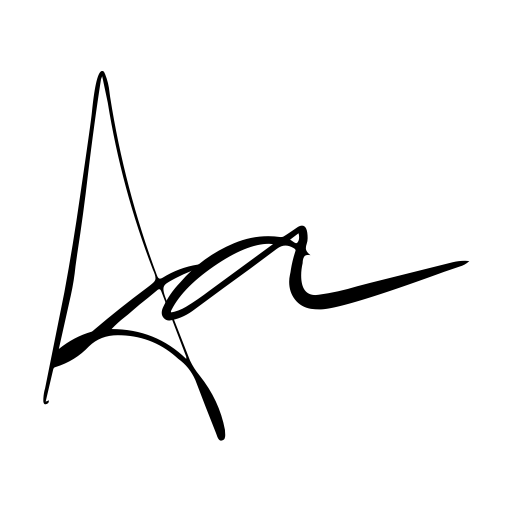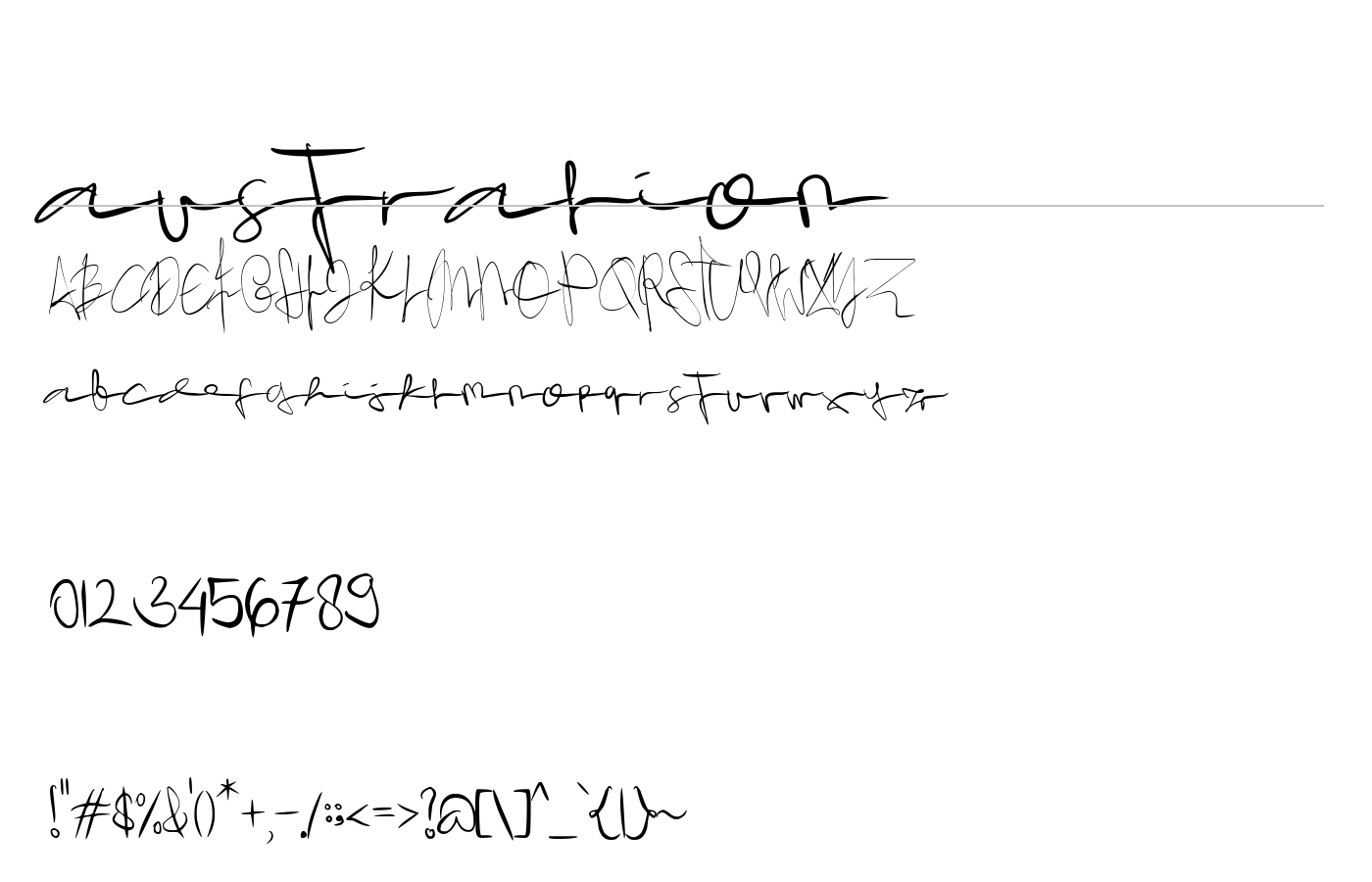
Australian Font is a delicate, handwritten script featuring thin, wispy strokes that create an airy and casual feel. Its irregular, slightly chaotic letterforms add a playful and artistic touch, making it perfect for creative projects or informal branding where a personal, expressive vibe is desired. This font is best suited for eye-catching headlines, invitations, or designs that benefit from a unique, hand-drawn character.
australion Font
About australion Font